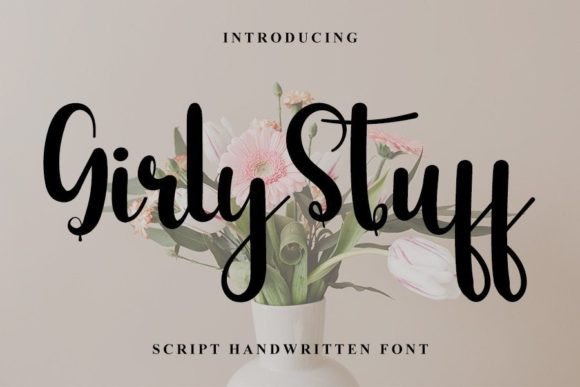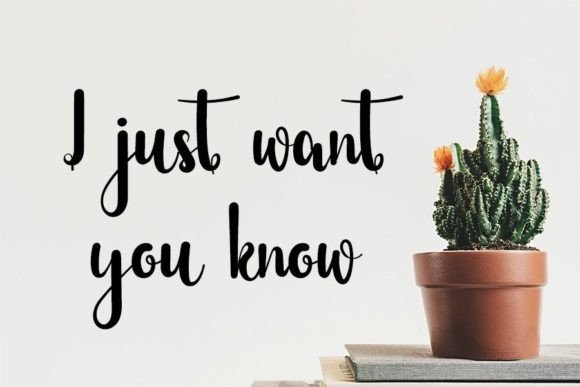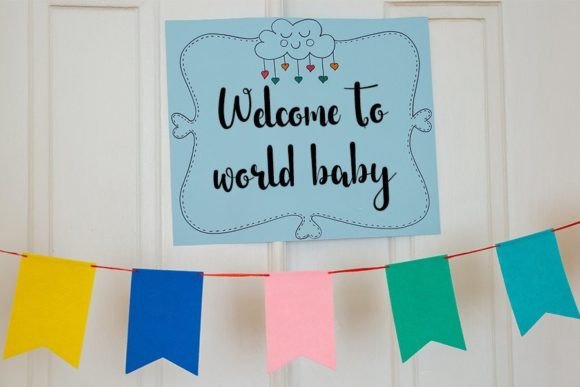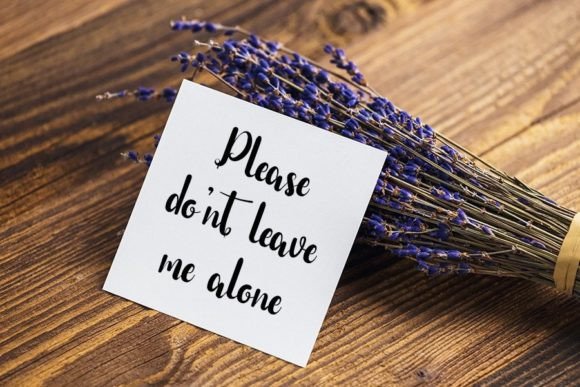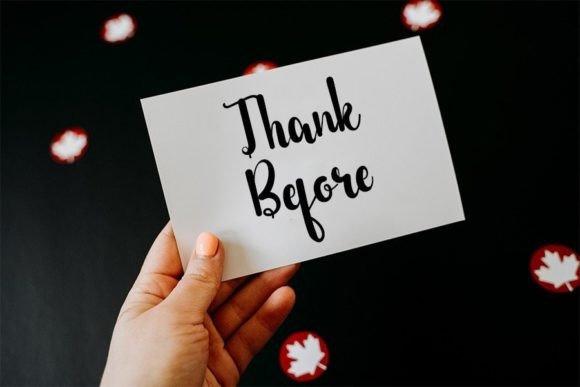
Girly Stuff Font
About Girly Stuff Font
Girly Stuff is a charming handwritten font crafted with care to become an instant favorite. It effortlessly combines friendly, hand-drawn elements with a touch of class from calligraphic influences, resulting in a font that feels both contemporary and fresh.
The friendly and approachable nature of Girly Stuff makes it a versatile choice for a wide range of design projects. Whether you’re working on branding, invitations, greeting cards, or any creative endeavor, this font adds a delightful and warm touch to your text.
While Girly Stuff retains its classy calligraphic roots, it introduces a modern and fresh twist, making it well-suited for those who appreciate a blend of timeless elegance and current design trends. This fusion of classic and contemporary elements makes Girly Stuff a standout choice for various applications.
In branding, Girly Stuff brings a personal and welcoming charm to logos and visual identities. Its handwritten style communicates authenticity, making it suitable for businesses and projects aiming to establish a genuine connection with their audience.
For invitations, Girly Stuff infuses a friendly and celebratory atmosphere. The font’s playful yet sophisticated character enhances the overall aesthetic, making it an ideal choice for special occasions and events.
Whether used in print or digital media, Girly Stuff adapts seamlessly, adding a touch of character to your text. Its versatility ensures that it becomes a cherished font in a wide range of design contexts, from professional to personal projects.
Girly Stuff is more than just a font; it’s a design asset that effortlessly combines friendliness, class, and a contemporary vibe. Let it become your go-to choice for projects that require a warm and stylish touch. Whether you’re designing for business or personal use, Girly Stuff is the font that captures the essence of both playfulness and sophistication.